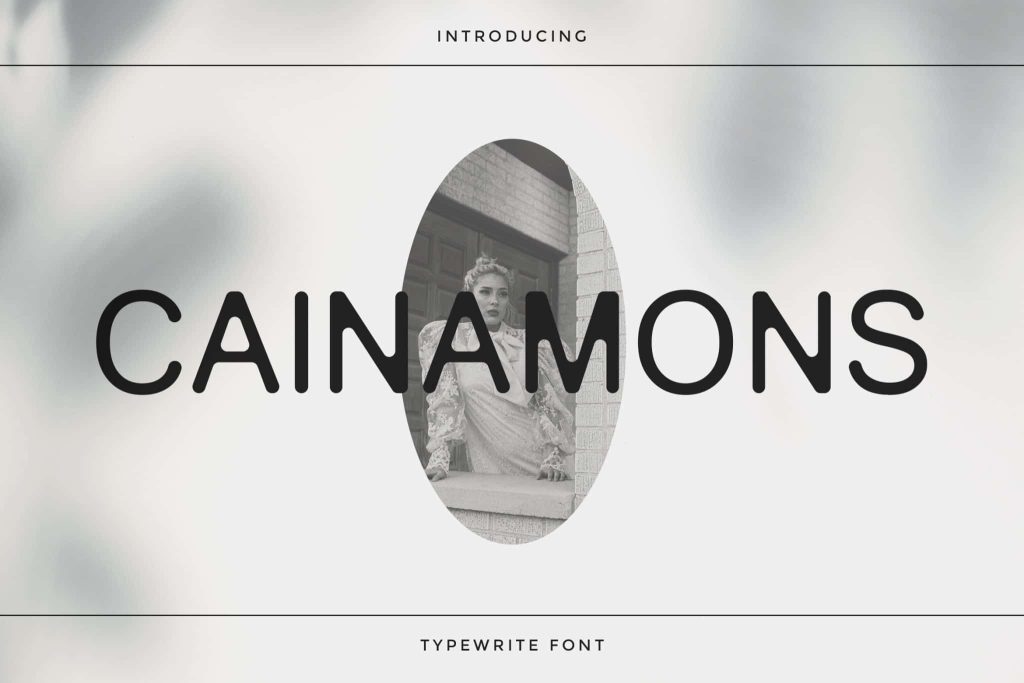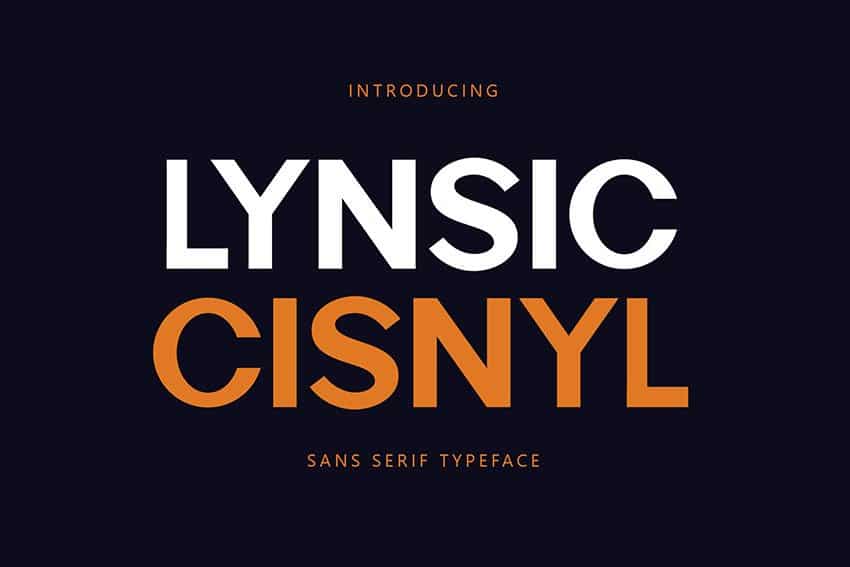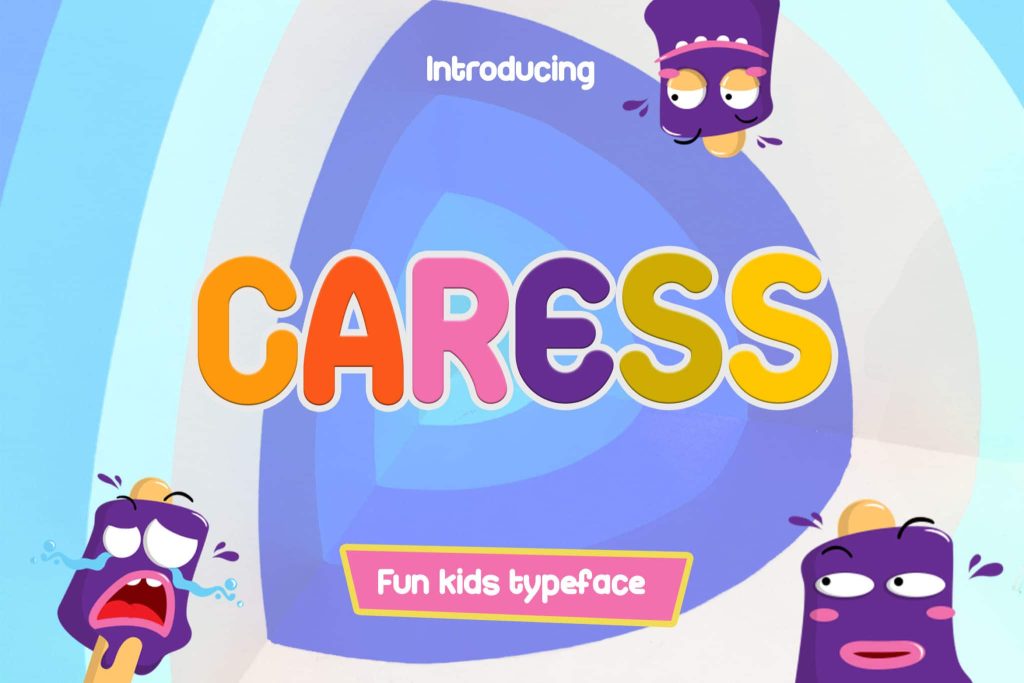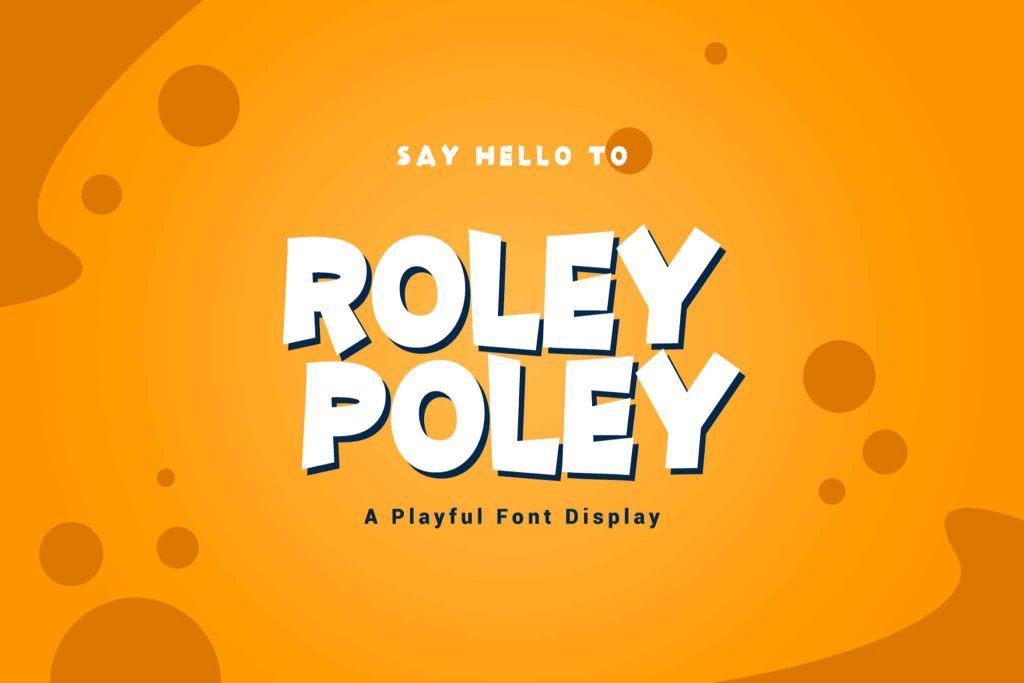
Recommended Fonts For Powerpoint Presentations
Microsoft PowerPoint can be a very helpful tool for many things like creating slideshows, conducting presentations, and sharing information with others. Powerpoint allows users to add various features by using special effects, animations, transition effects, shape fills, and more. Due to its versatility, it has become a professional presentation tool. To add to that, there are plenty of fonts and templates that you can use while in Powerpoint presentations.
The use of fonts in a PowerPoint presentation will of course affect the reader in understanding the message to be conveyed, whether the message is in the form of a sales promotion, briefing, demo, or report. Therefore, the selection of fonts must be really appropriate so that readers feel at home for long listening to your presentation.
How to Choose the Best Font for a Presentation
Here are some tips that you can consider in choosing the font that you will use in your PowerPoint presentation:
1. Choose a Simple Font
Complex fonts like scripts and decorative fonts can make your designs look cluttered and make it difficult for your audience to read what’s on your slides. Simple fonts like serif or sans serif fonts are ideal because they are easy to read and blend well with any type of design.
2. Choose a Sans Serif Over a Serif Font
If you have to make a choice between a serif or a sans serif font, choose the latter. Sans serif typefaces have better readability on the screen. Fonts with serifs or extra strokes at the end of characters sometimes look blurry on screen, which can confuse or distract your audience and make it difficult for them to read.
3. Choose a Font That Looks Great at Both Big and Small Sizes
The best practice for Powerpoint presentations is to use a font size no lower than 24 points. To maximize readability, it is important to choose a font that is neither too thin nor too bold. Choose a font that will maintain its clarity and quality whether it’s increased to 120 points or decreased to 24 points.
4. Choose a Different Font for Your Titles and Headings
Don’t use more than 4 fonts in your presentation. Your body fonts should be different from your headlines, headings, and subhead fonts to put proper emphasis on them and create variety and visual interest in your presentation. They should also be bold and have a larger font size.
5. Choose Fonts That Complement Each Other
Create balance in your designs and promote smooth transitions between sections of your content by choosing the perfect font pair. Combining serif fonts is usually the best way to go. These fonts can definitely stand alone, but they work better when put together.
Lynsic Cisnyl – Sans Font
Caress – Kids Fun Font
Cainamons – Vintage Font
Roley Poley – Playful Font